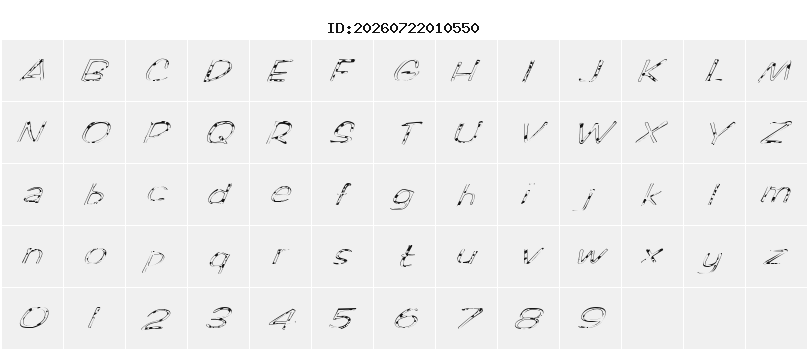
FZ HAND 2 SPOTTED ITALIC Preview
• Font Name: FZ HAND 2 SPOTTED ITALIC
• Full Font Name: FZ HAND 2 SPOTTED ITALIC
About FZ HAND 2 SPOTTED ITALIC.ttf
FZ HAND 2 SPOTTED ITALIC.ttf is a modern, elegant sans-serif font designed for ultimate readability and visual harmony. Perfect for branding, headlines, web design, and print materials.